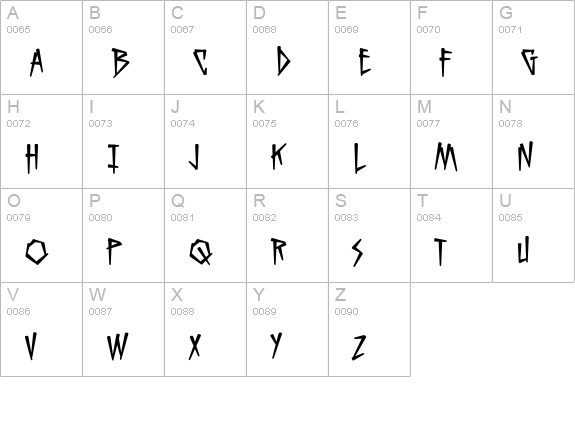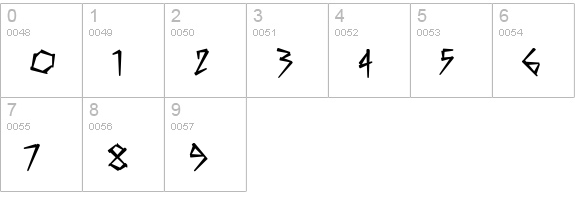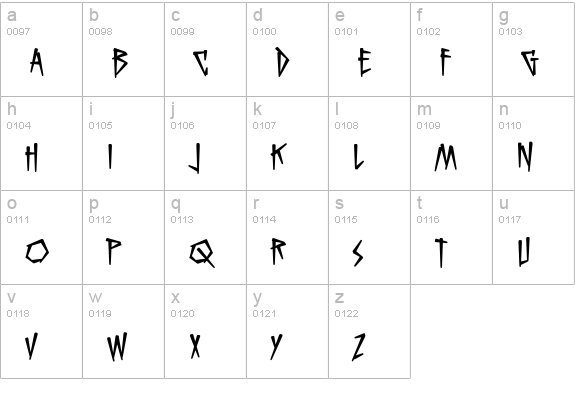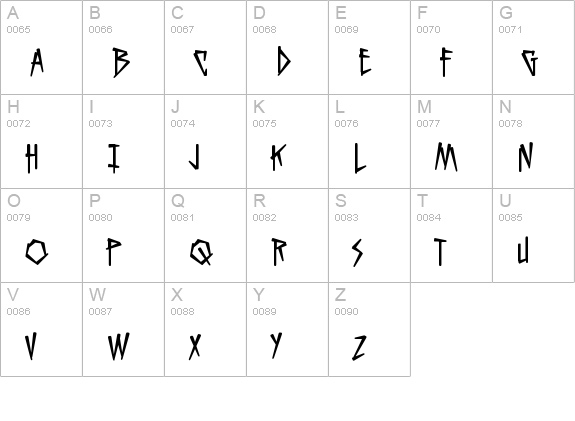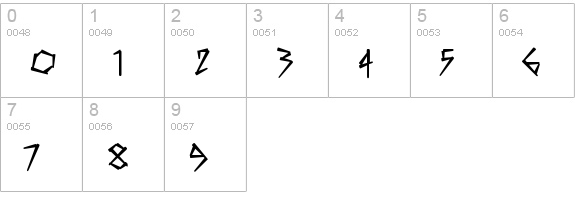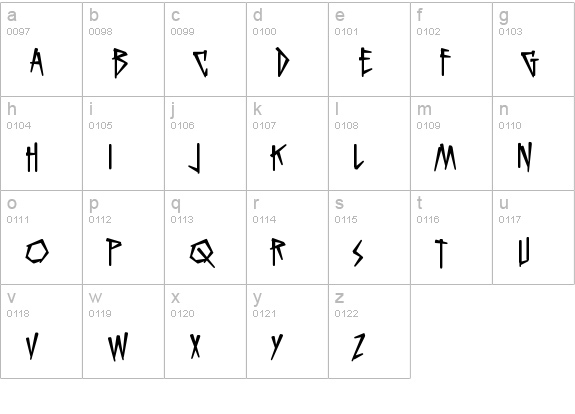
KillCrazy BB Font Details
KillCrazy BB font is a striking and bold typeface that exudes a sense of power and intensity. Its sharp edges and exaggerated shapes give it a unique and eye-catching appearance, making it perfect for projects that require a strong and impactful aesthetic. This font is ideal for headlines, posters, logos, and other designs that demand attention. The best part about KillCrazy BB font is that it is completely free to download at FontsMarket.com. This means that you can easily access this powerful and dynamic font without any cost, making it a valuable addition to your design arsenal. Don't miss out on the opportunity to enhance your projects with the bold and commanding presence of KillCrazy BB font. Download it today and unleash its full potential in your designs.